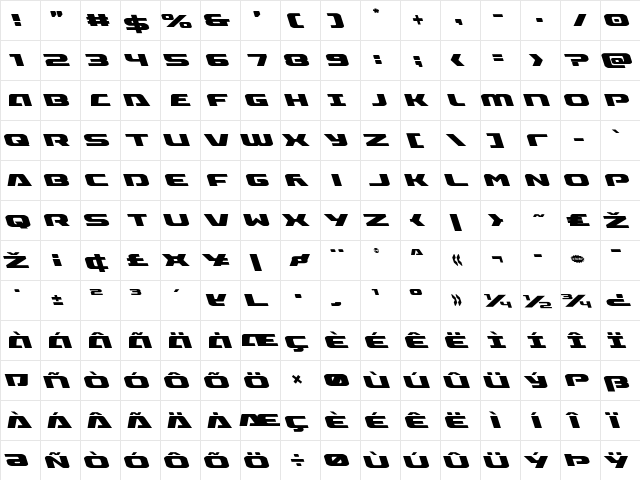
Iapetus Leftalic Italic
Design Context for Iapetus Leftalic Typeface
Iapetus Leftalic is a composed and adaptable typeface that performs quietly and consistently across a wide range of design contexts. The slanted form adds forward momentum and visual energy.
Pro Tip: Use Iapetus Leftalic for emphasis, pull quotes, and subheadings where its slanted energy can add rhythm to the layout.